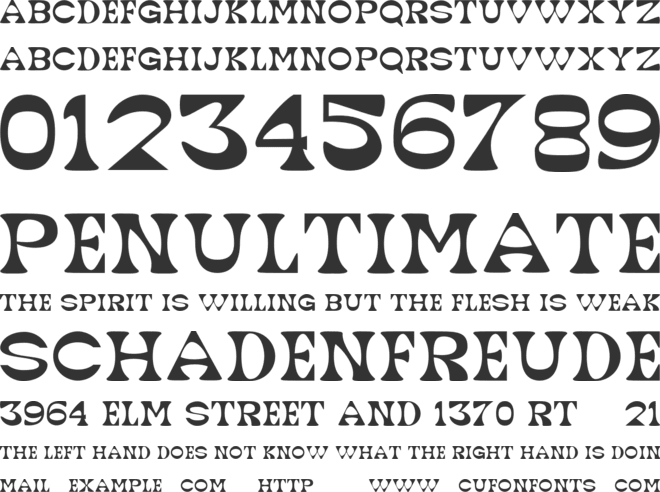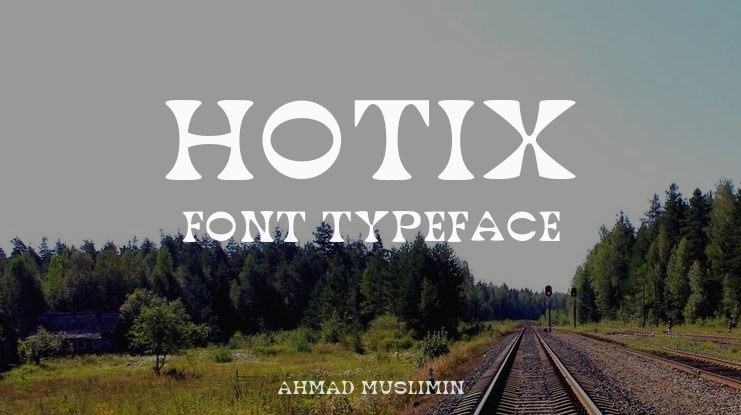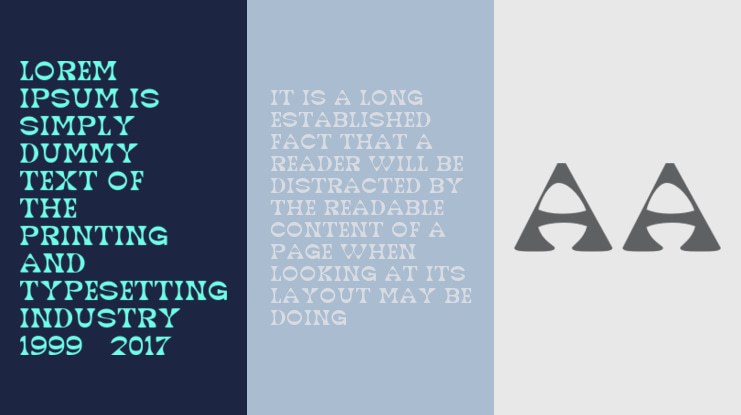
Ahmad Muslimin
Hotix Font is a quirky retro display typeface that combines vintage charm with modern creativity. Designed by Koplexs Studio, it features bold curves, sharp contrasts, and playful letterforms that make your designs stand out effortlessly. Perfect for both digital and print projects, Hotix Font adds a unique, artistic personality to every layout, creating visual impact while maintaining elegance and readability.
Ideal for branding, logo design, posters, apparel, packaging, and social media graphics, Hotix Font works beautifully across industries like fashion, lifestyle, and creative marketing. Its nostalgic yet trendy vibe makes it perfect for designers seeking distinctive typography with character. Make your projects unforgettable. Download Hotix Font today and elevate your visual storytelling with bold, stylish energy.